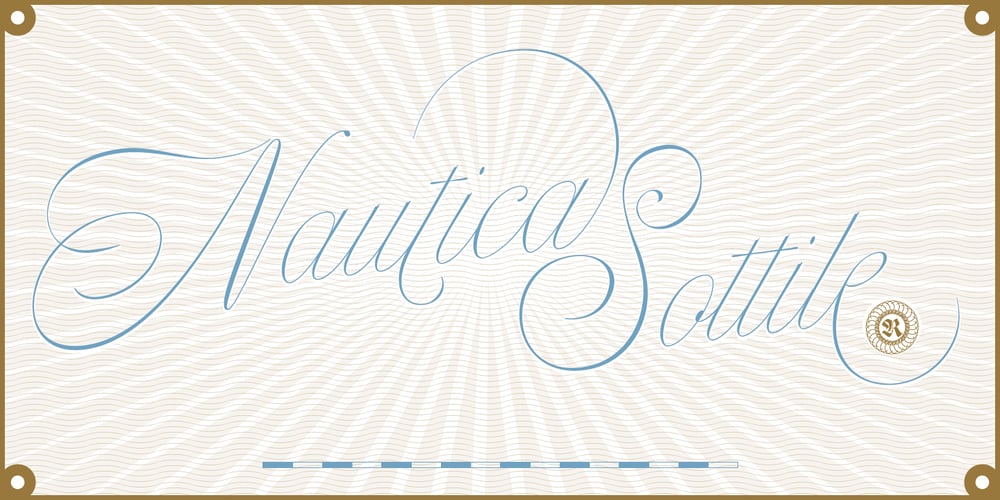
Nautica Sottile Font Family was designed by published by Resistenza. Nautica Sottile contains 1 styles and family package options. The Copperplate penmanship style has a distinctive flow and character. Many years of steady and patient practice allow calligraphers to achieve the flow, direction, sequencing, and speed required from the copperplate ductus, to achieve its distinctive, elegant, fluid aesthetic. Nautica is a monumental new script from Resistenza, which builds on the creator’s accomplished penmanship skills. The delicate strokes have high contrast and an extravagant personality. These letterforms invoke 18th-century sailors logbooks and the nostalgic correspondence those at sea sent home to their loved ones, with letters looping and rolling into one another like the waves these intrepid adventurers voyaged on. Nautica’s ornate feel is perfectly suited to romantic applications, and with three weights, one set of useful navigational icons and some nautical knots Nautica will allow you to create rich and cohesive graphics for those ‘tying-the-knot’ or in any display context which requires some sophistication. Nautica allows you to achieve the complexity and flow of copperplate calligraphy with OpenType features. Supreme swashes inspired by brush pen stroke, and exhaustive alternates, with over 900 glyphs and extensive language support, Nautica offers full professional typographic features, for a natural ‘written’ look. Check out also “Voguing” & “Nautica”